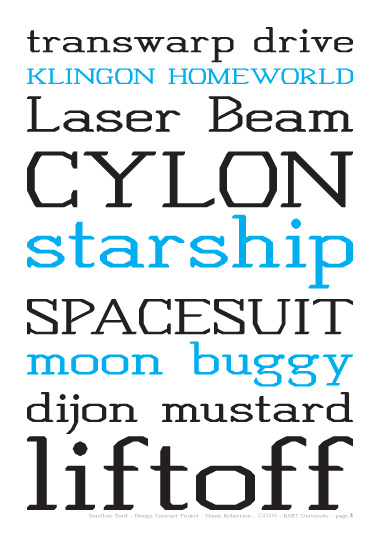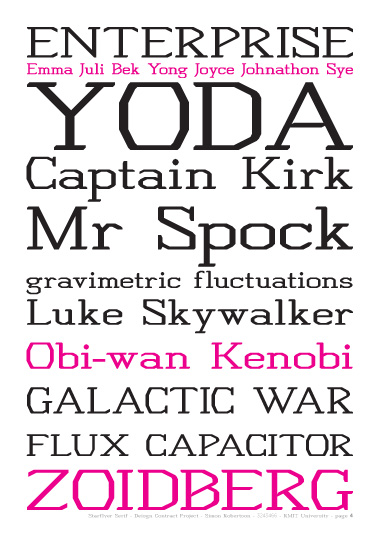
Starflyer Serif
My first serious attempt to make a serif using Fontstruct. This is for a university project, where I am attempting to make a serif that could be used in sci-fi moives/tv shows etc. So I’m trying to figure out what makes a typeface 'sci-fi' without a) being a sans and b)resorting to clichés that impede readability. Any comments/feedback would be much appreciated! ** Much thanks to everyone who has/is giving feedback. Also a big thanks to William for giving me such detailed suggestions and pointers. **
So I'm happy with some of the direction this is taking... but it's not really sci-fi yet :-/
Good start. You might consider dropping the sci-fi focus and just see where the typeface takes you.
Begs the question, will there be serifs in the year 3010?
nice beginning. i would agree with afrojet about letting the font define itself. but regarding sci-fi attributes, if we look at the fonts used for stars wars and star trek as 2 examples, they seem to generally be bold, modular-looking, angular, san serif - giving a sleek, clean, futuristic feel - i think these features could be used as visual clues for your work, perhaps. however, if you look at vintage sci-fi, they used serif fonts. so i think quite possibly fs could give you ability to create a nice retro looking contemporary font. good luck :)
I agree with afrojet and fk.
I think you should make the P look like the R without its leg. It looks a little squished to me.
Thanks guys! For my uni project I had to define the intentions before designing, so I'm attempting to make a sci-fi serif, that does not look overly retro or cliche.
I love sci-fi, in all it's forms and have been doing lots of 'research' for this project, from my observations, Microgramma and Bank Gothic are the 2 most used fonts. Other fonts like Soho or FF Signa Serif are inspiring, but I don't want to copy. :-)
I'm glad you're exploring this. It's quite fascinating. A sci-fi serif typeface...To be honest, I couldn't even think of a precedent for such a thing. Perhaps the ubiquity of Bank Gothic and Microgamma/Eurostile have something to do with the genre being so rigid.
Indento has a bit of a sci-fi feel and it's a slab serif.
Nice update to the P.
I know it's coincidence, but I just noticed that so far, you have just the right letters for me...
@afrojet - wow indento is crazy! and yes, this is proving to be a challenge, mostly as i;m trying to avoid just amking a slab bank gothic/eurostile, but instead something different.
Don't be shy — give us some 'Handgloves', or the good old 'Hamburgefons'... :-)
Another sci-fi looking reference — Feisar, by Paul van der Laan.
Oooh...Indento and Feisar are both sweet!
thanks again guys! feisar looks great, but again, follows some usual conventions for sci-fi faces. another one that's great is Alphaville by Nick Shinn.
The detail on the terminals of E and F is beautiful. Narrower B P R would take this closer to classic roman proportions.
Tightened the BPROQ. fixed the K and B. what do you think?
nice letter forms, but i don't know if it think sci-fi when i see this. since this is a work in progress, maybe experiment a little more with your glyphs - see how your serifs look if they were angled, try less symmetry and more angles like in your B - you may see some surprises. also, don't discard any changes, save them in another version - just looking at your O and o indicates you may have 2 versions you can develop from this starter :)
another thought - create the glyphs needed to view the words: sci-fi, space, mission, or any other sci-fi related word or phrase. this may help you better see how the font will look when actually used for...well, sci-fi projects. it may help :) also what about half serifs? maybe only the top or bottom one on any given glyph, and/or maybe inside or outside ones? or alternating them - kinda like the randomness of space? i can almost see a variation where using D as an example, the top serif is removde and that top left corner is angled in. oh well, just some friendly thoughts and suggestions. this really has lots of potential :)